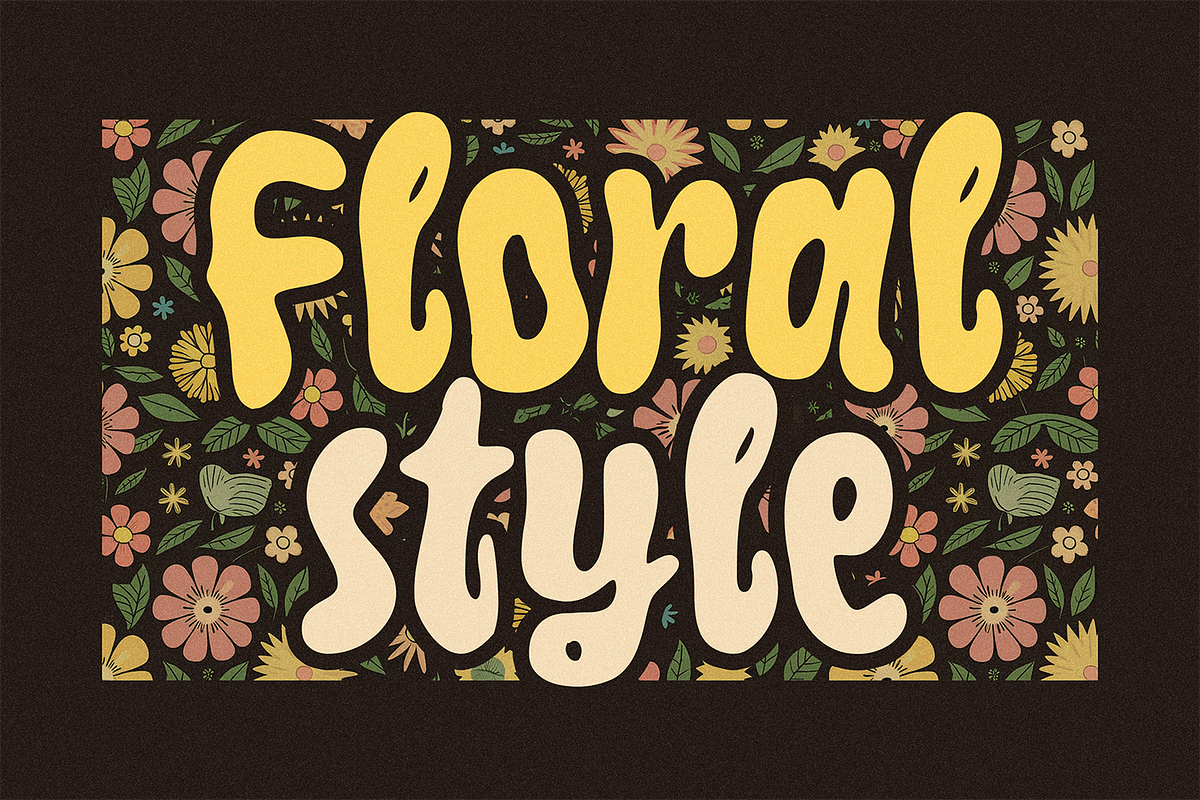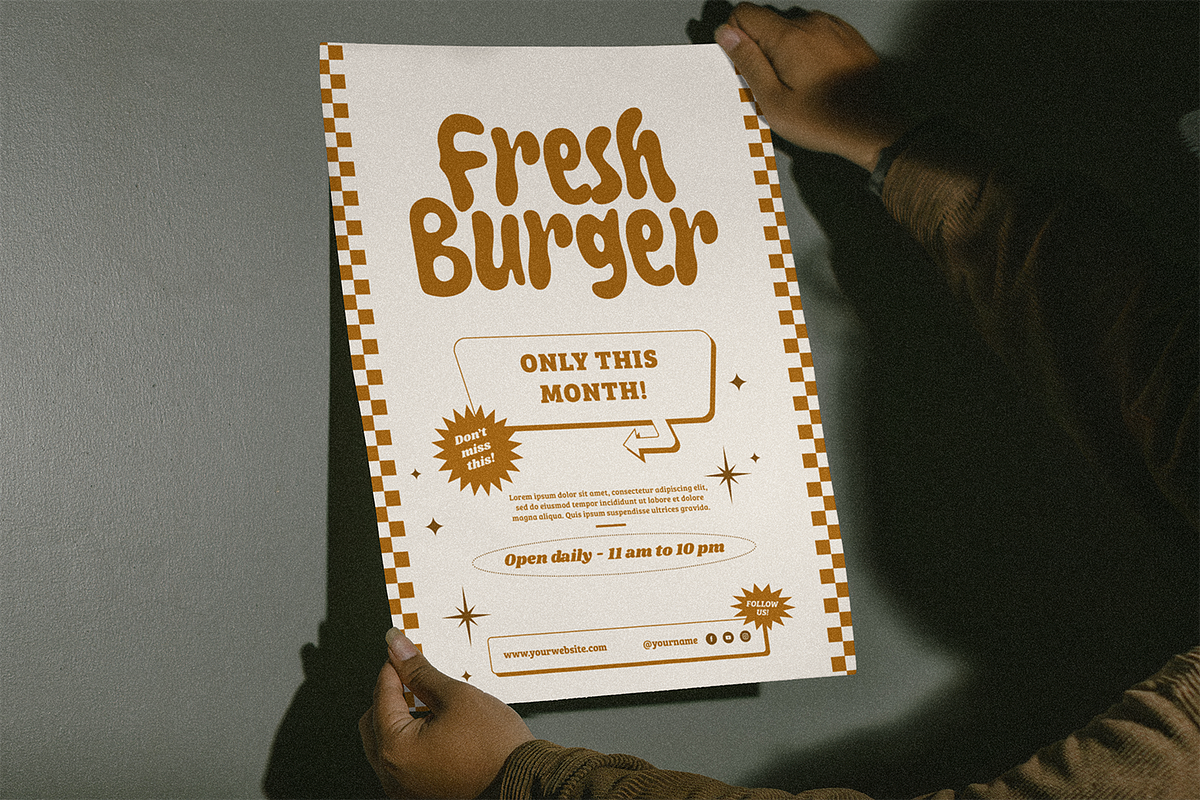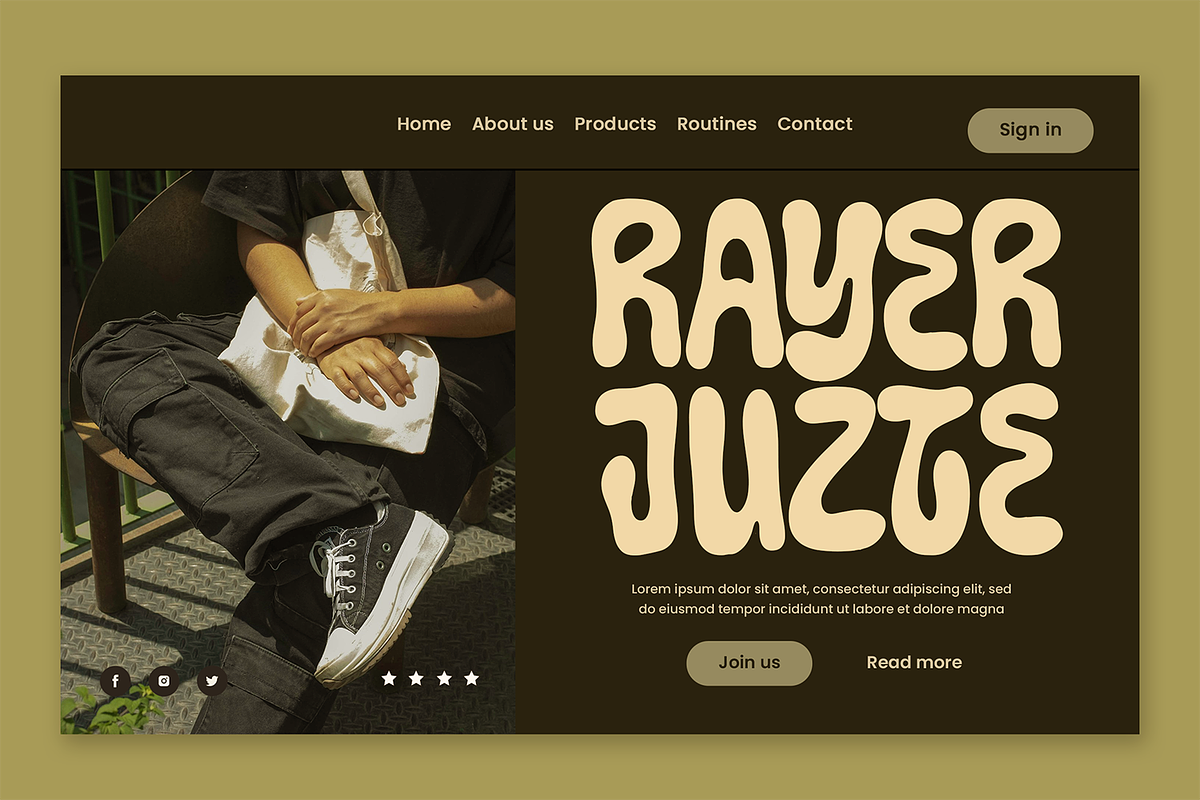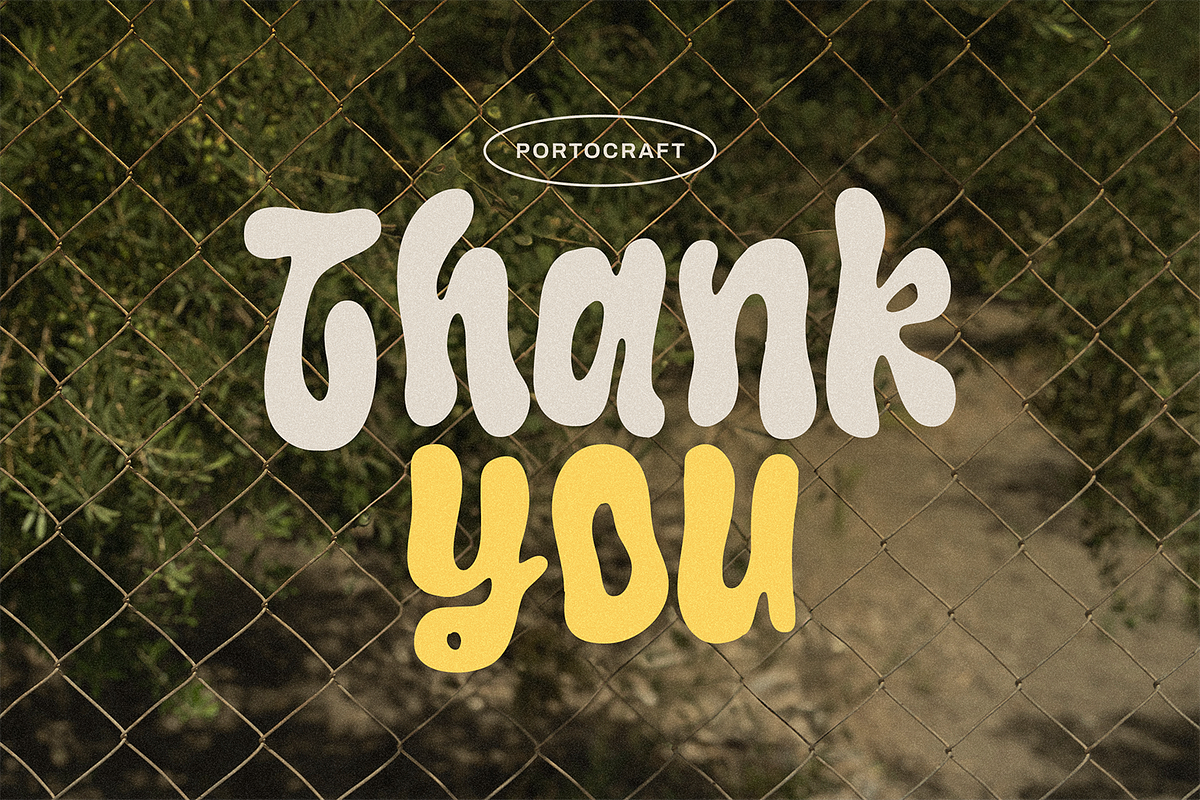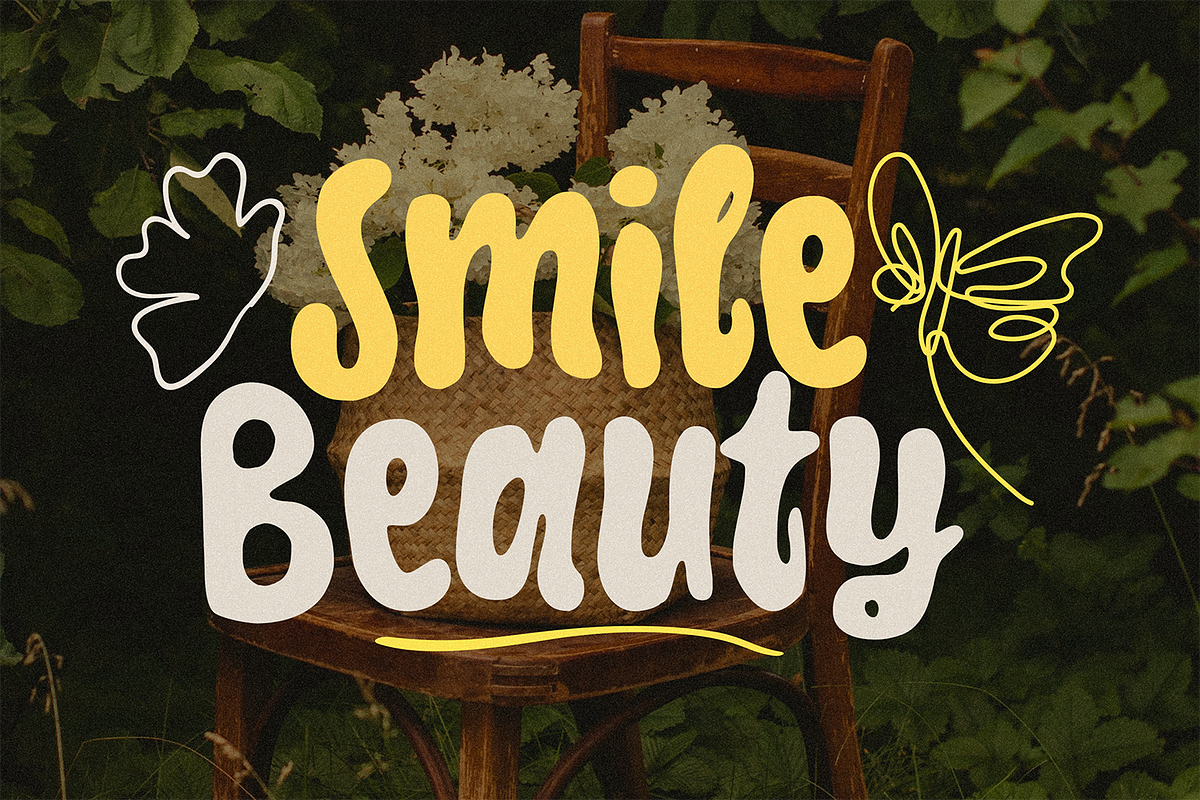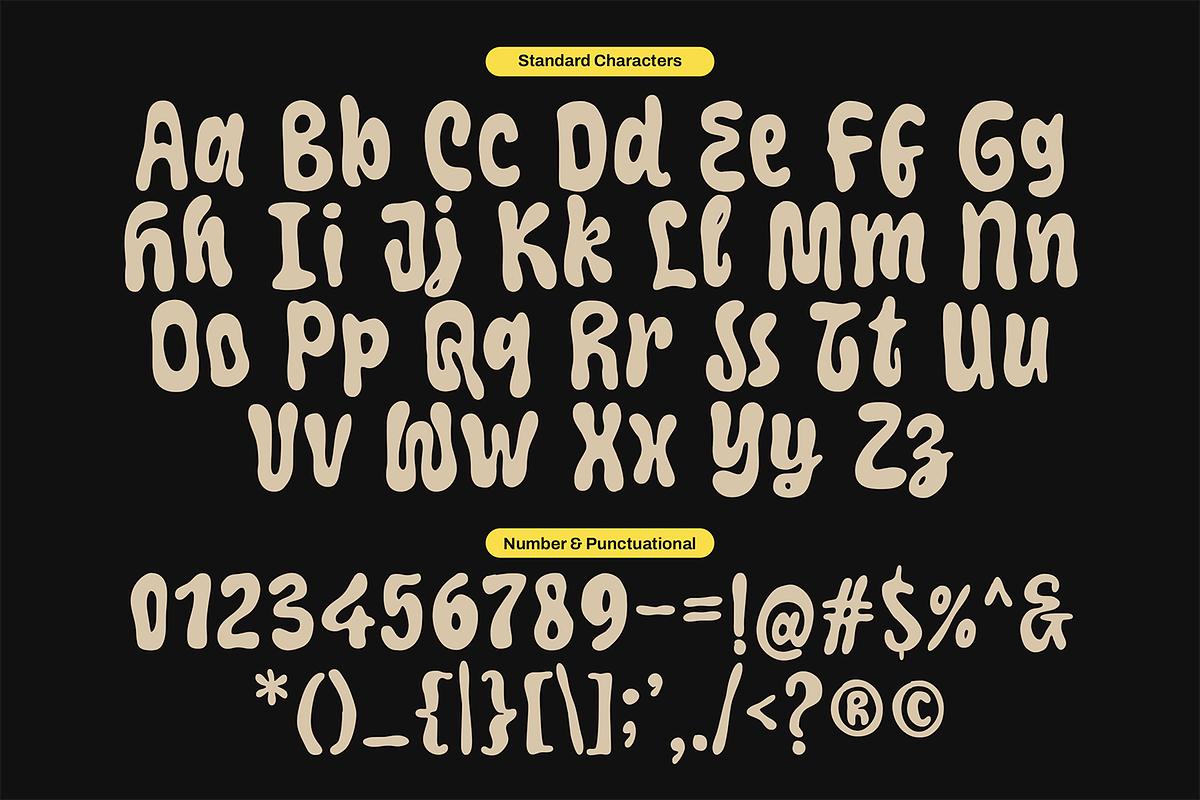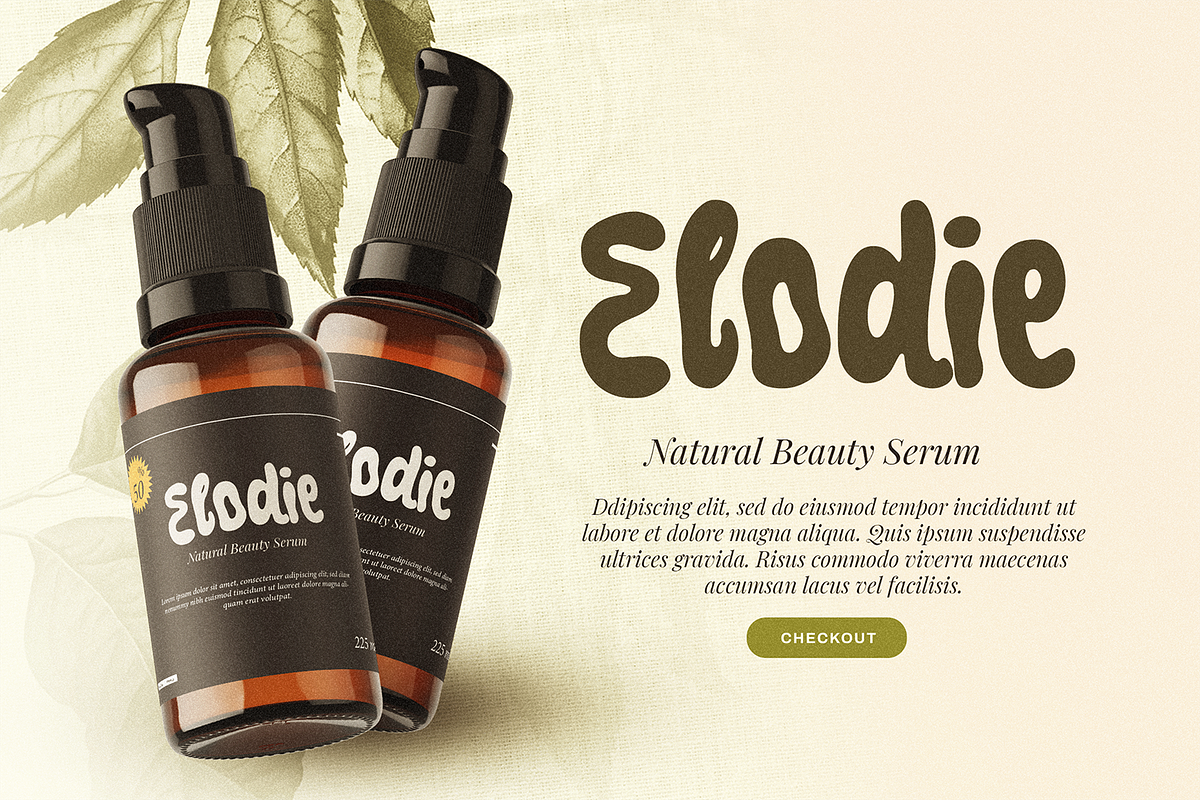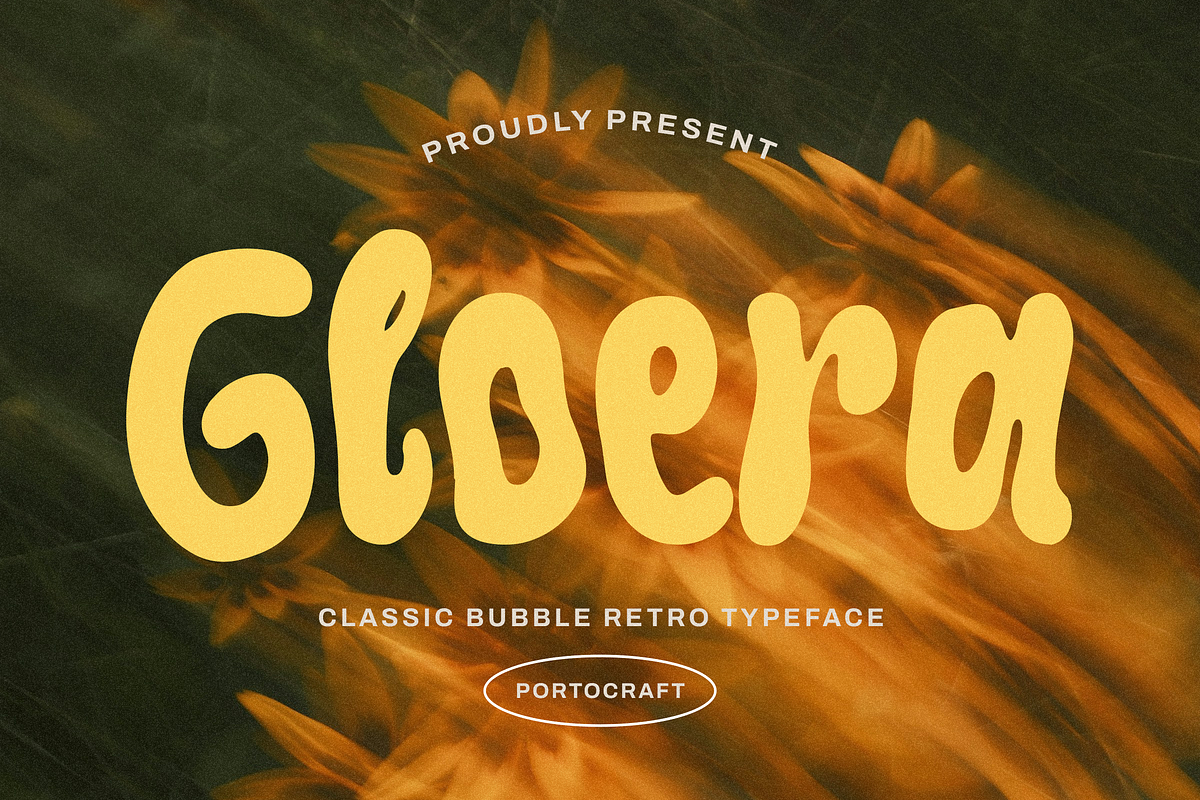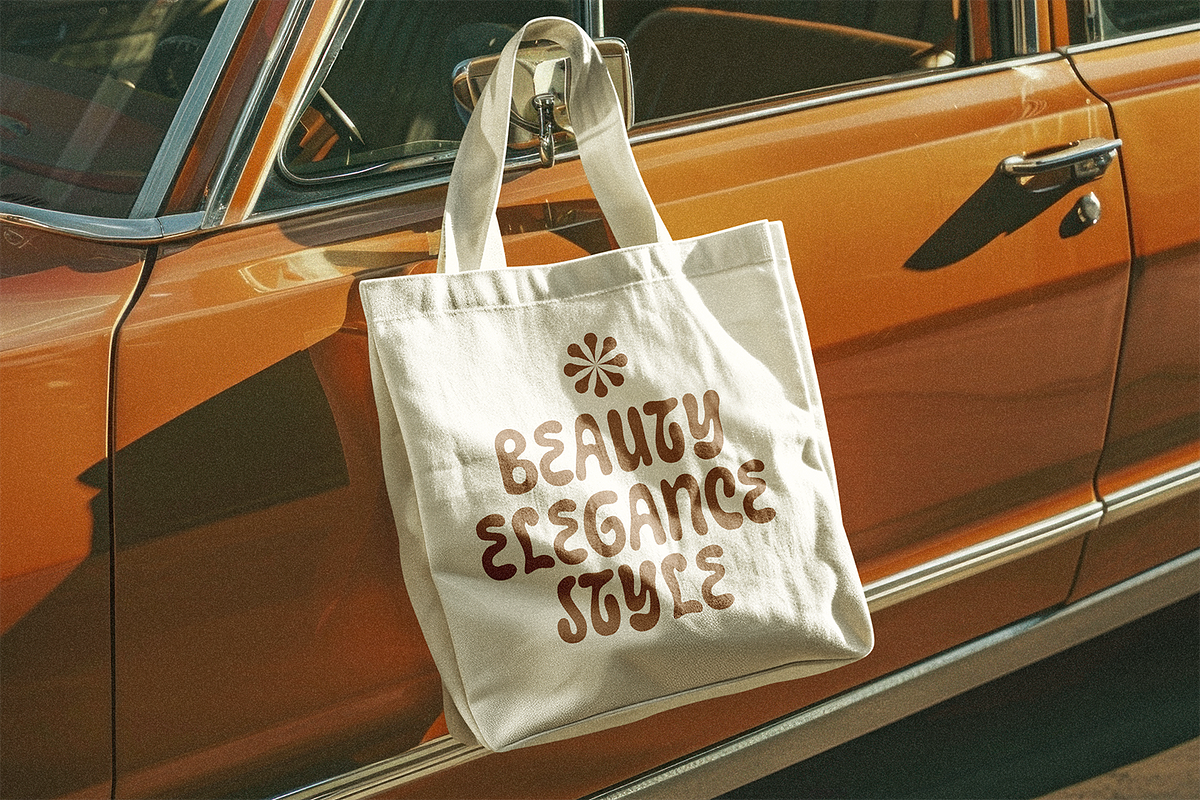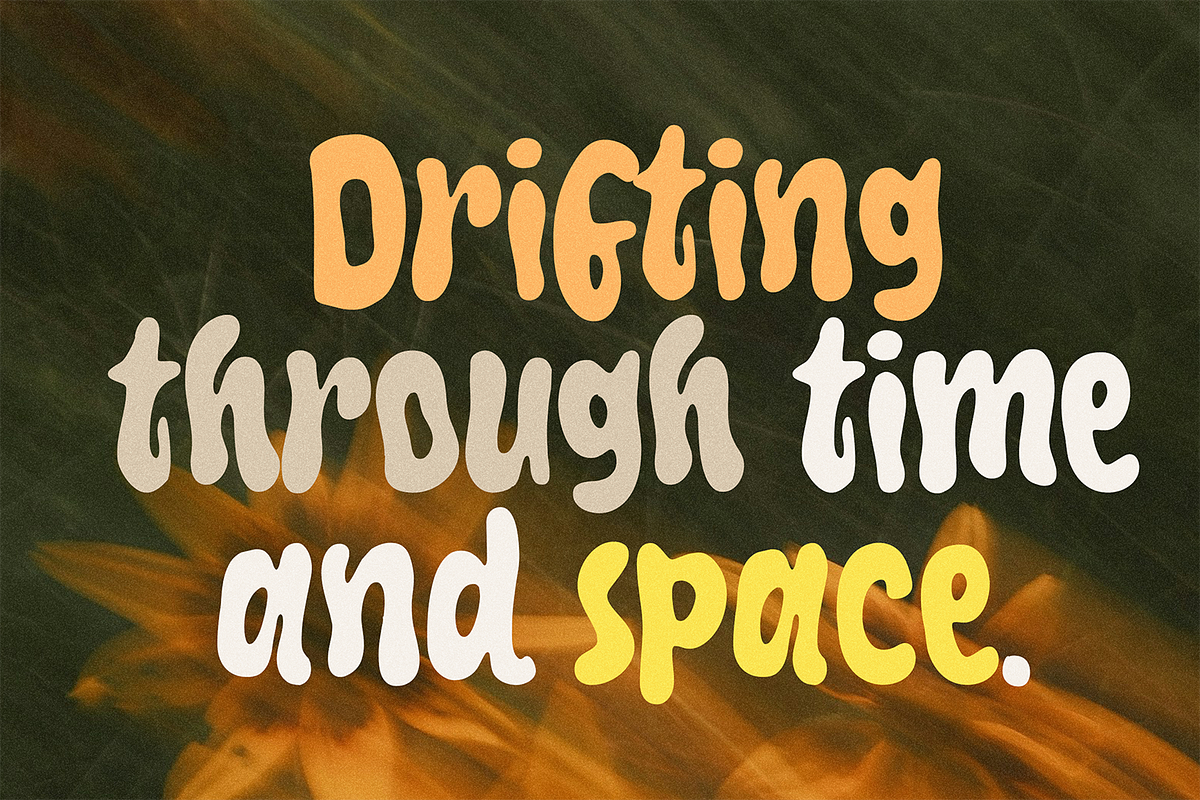
Gloera – Classic Bubble Retro
Gloera is a playful classic bubble retro typeface that brings back the charm of the 70s and 80s design era. With its rounded shapes, bold curves, and nostalgic vibe, Gloera is perfect for creating standout retro-stylE, vintage posters, groovy album covers, packaging, or social media graphics.
Its bubbly and fun character makes it versatile for both display and headline use, giving your projects a warm, nostalgic, yet modern retro look. Whether you’re designing branding materials, event posters, or lifestyle merchandise, Gloera adds a cheerful and timeless personality to your work.
- Unique Letterforms